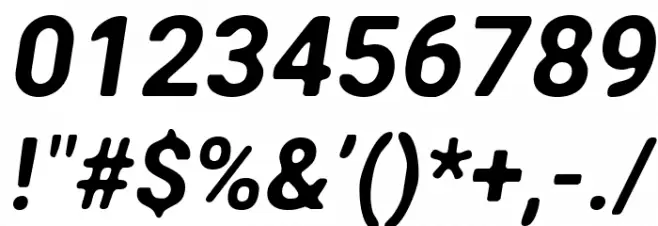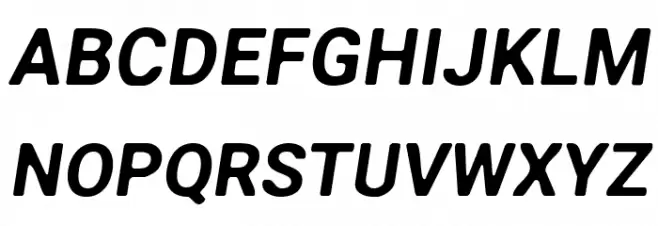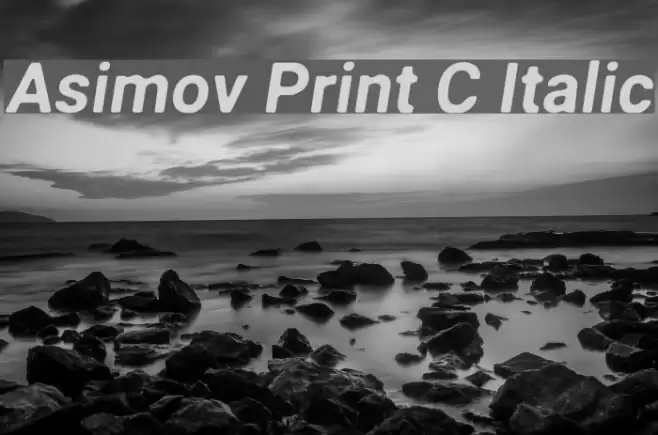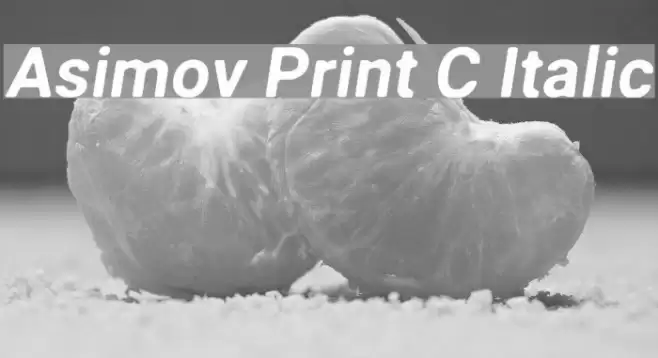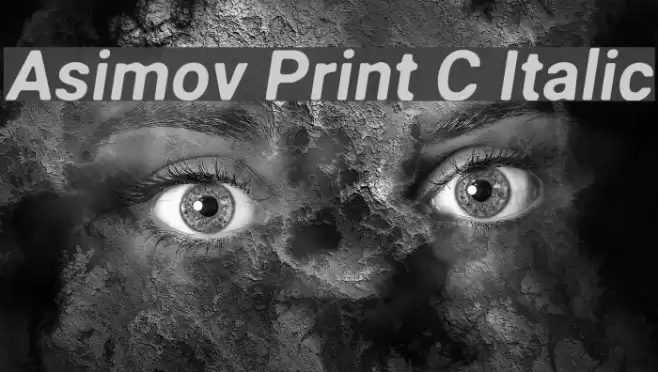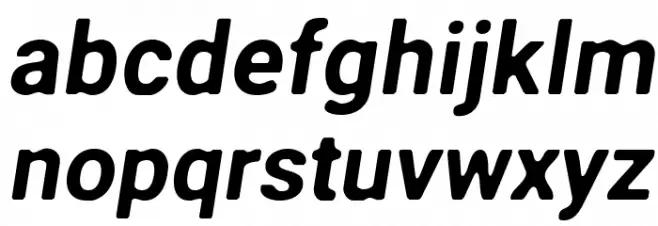
Asimov Print C Italic Font
Asimov Print C Italic Description
This font features a modern and sleek design with a slight italic slant, giving it a dynamic and forward-moving appearance. The characters are bold and rounded, providing a friendly yet professional look. The uppercase and lowercase letters maintain a consistent style, ensuring readability across different sizes. The numerals are clear and distinct, making them suitable for various applications. Special characters are well-integrated, maintaining the overall aesthetic. This font is versatile, suitable for both digital and print media, and can be used in a variety of design projects.
| Use Case | Headlines, Logos, Digital content |
| Proposed Projects | Ideal for branding, advertising, digital content, and editorial design. |